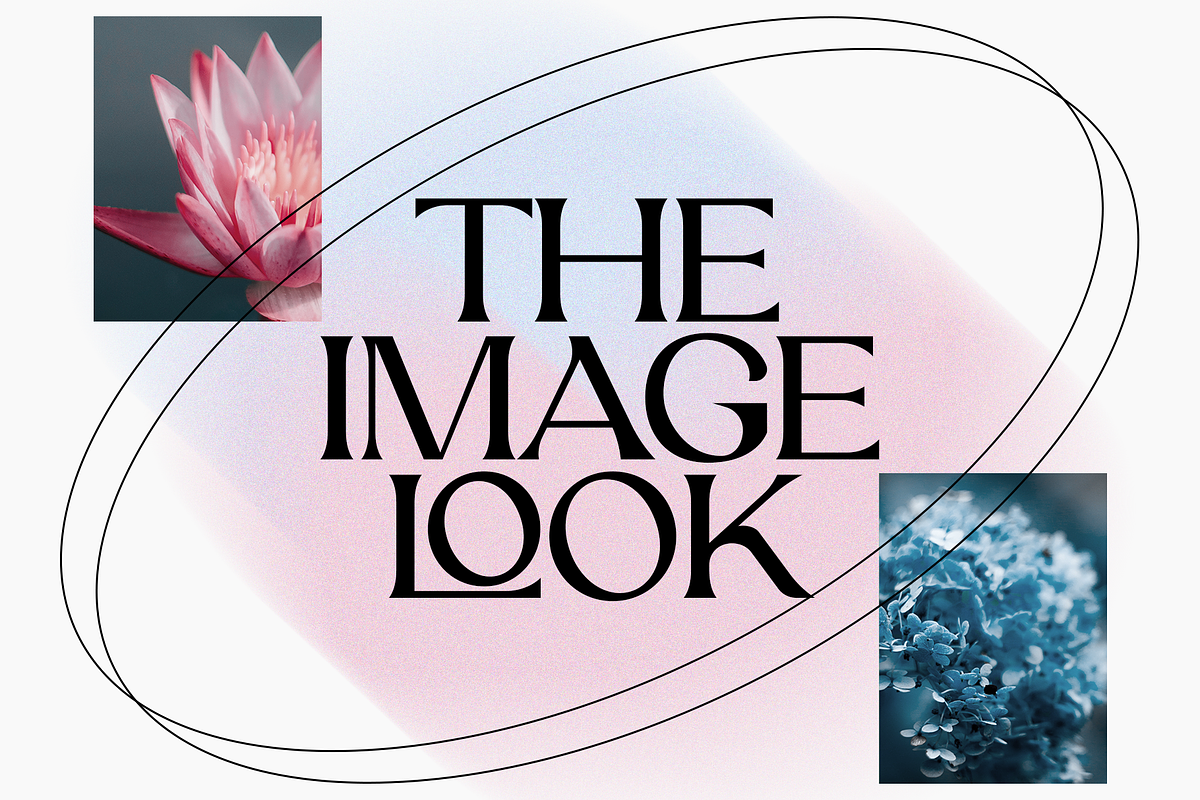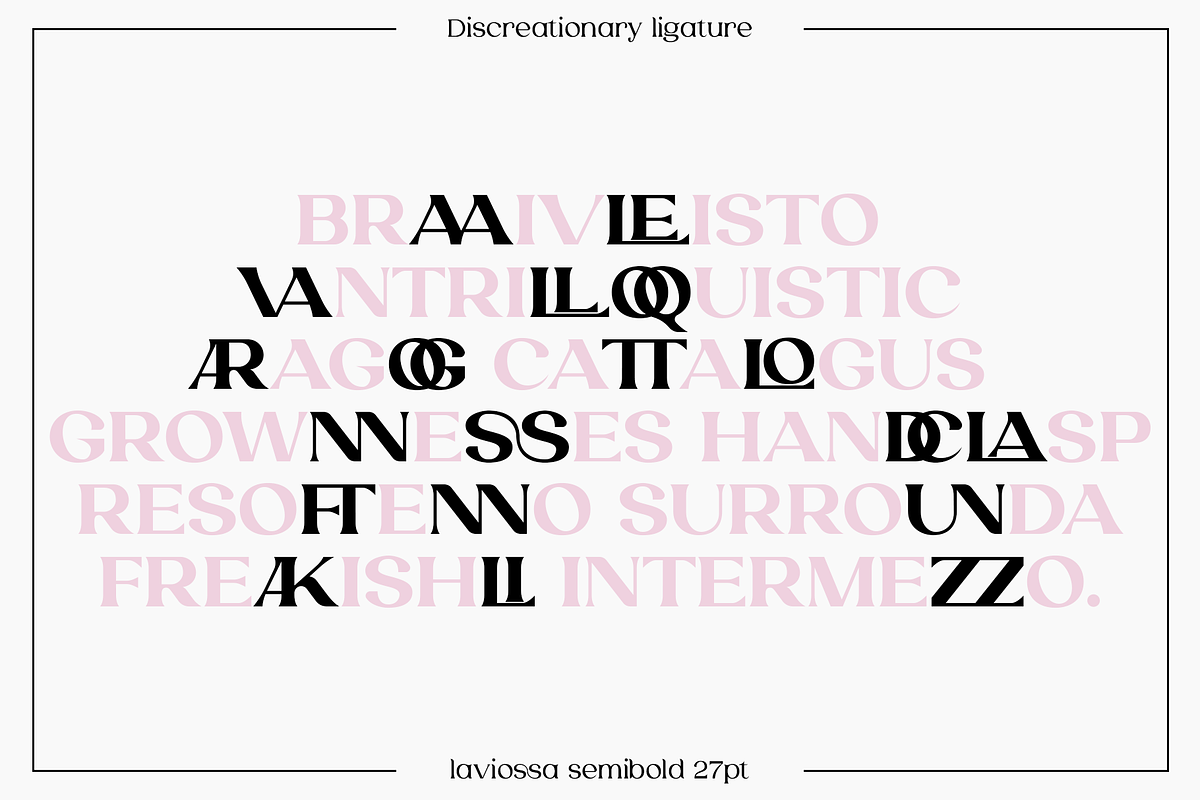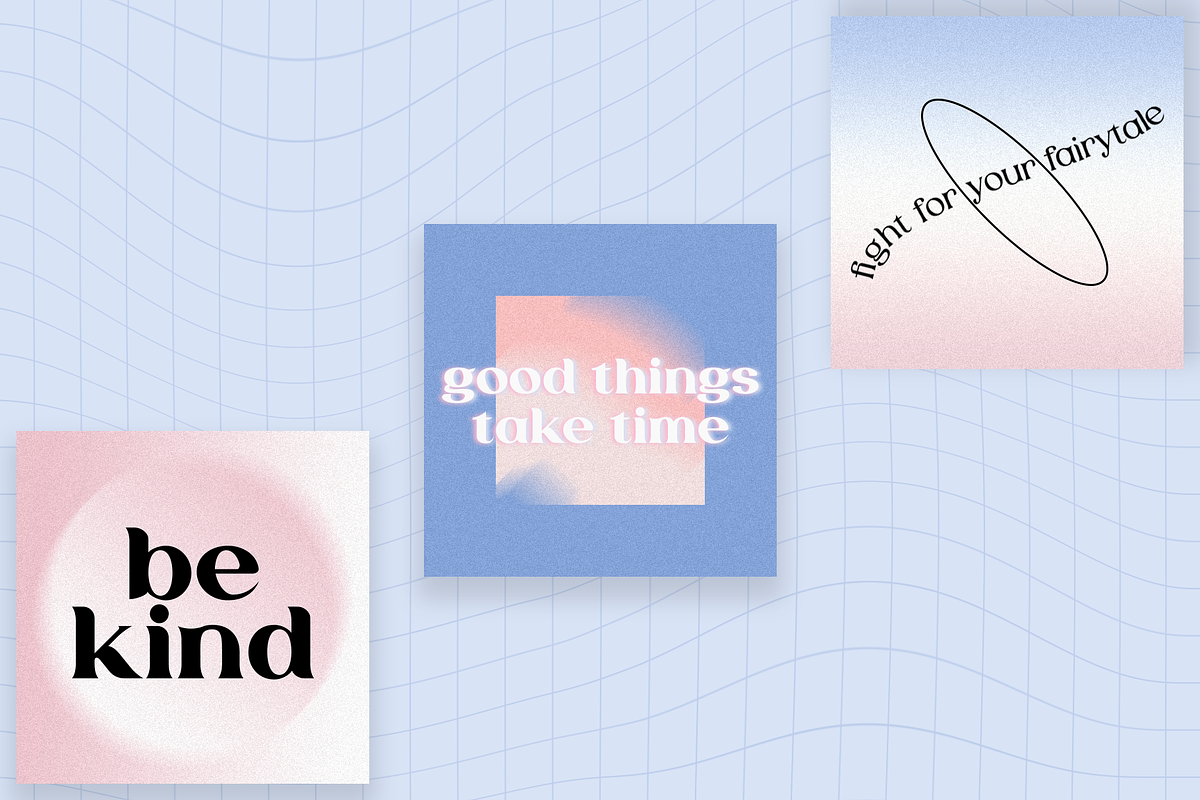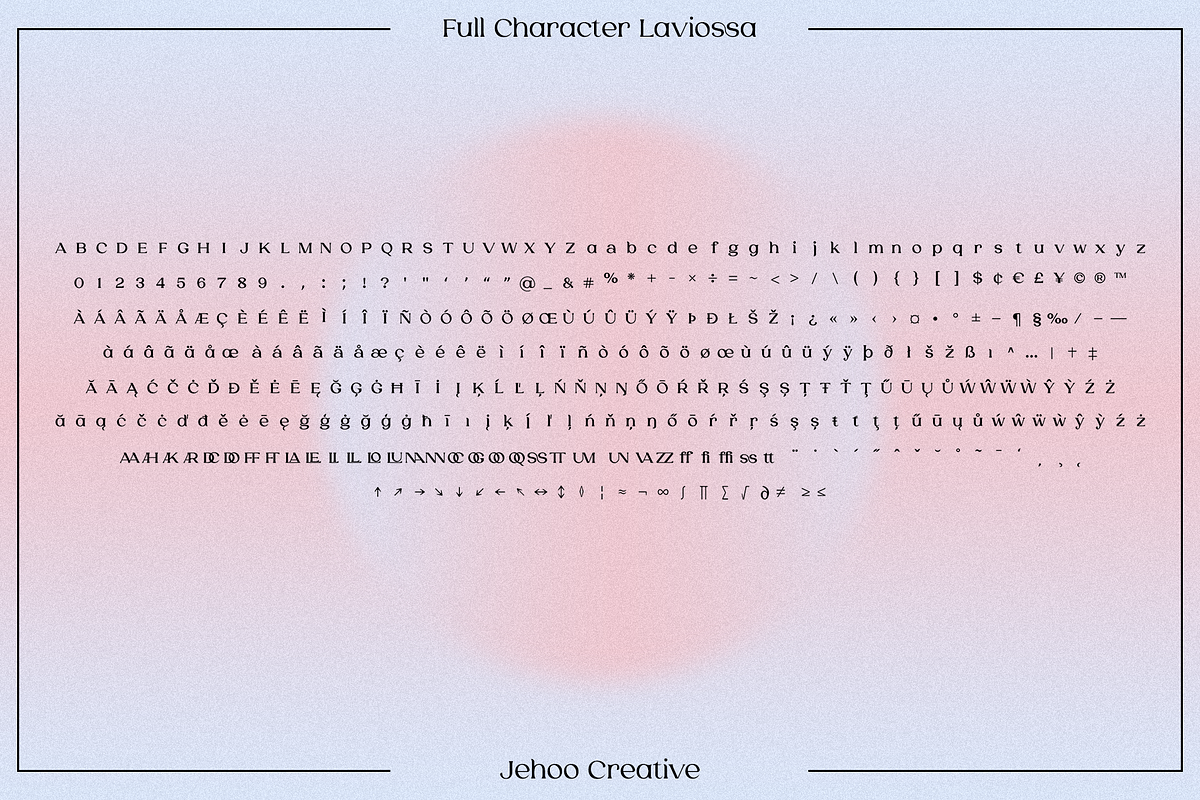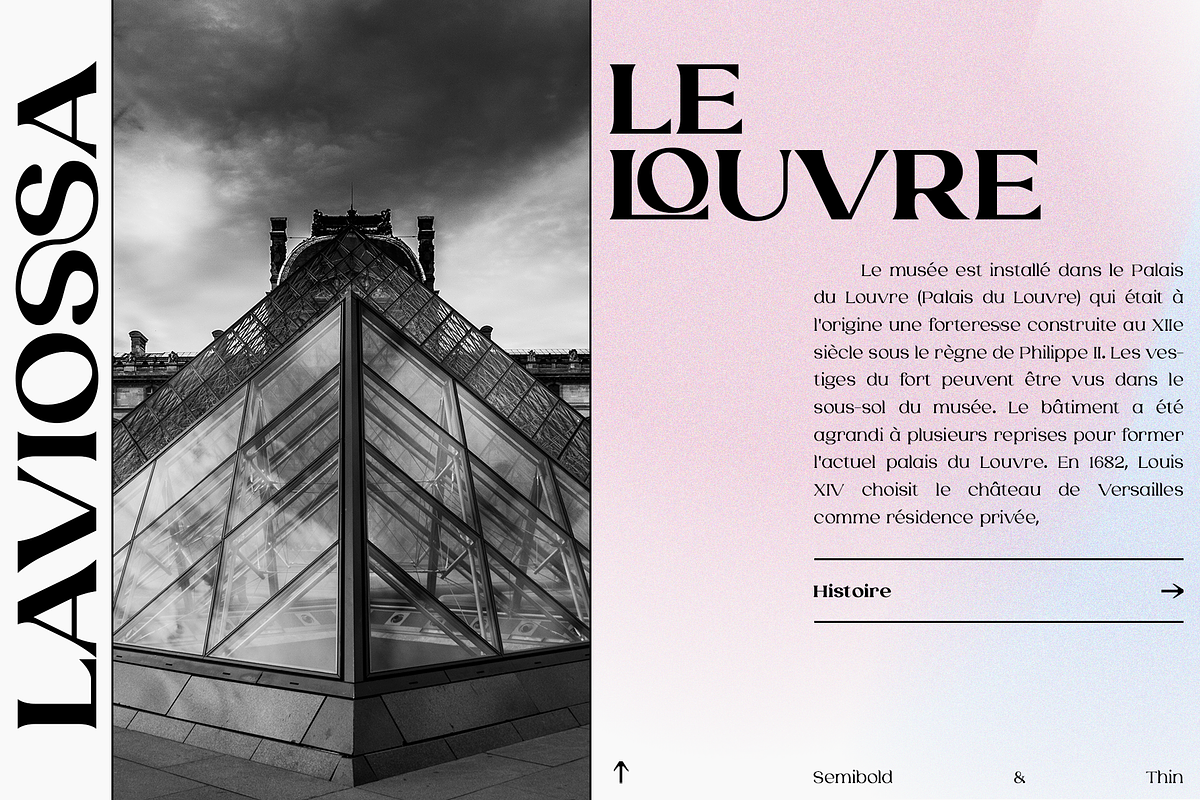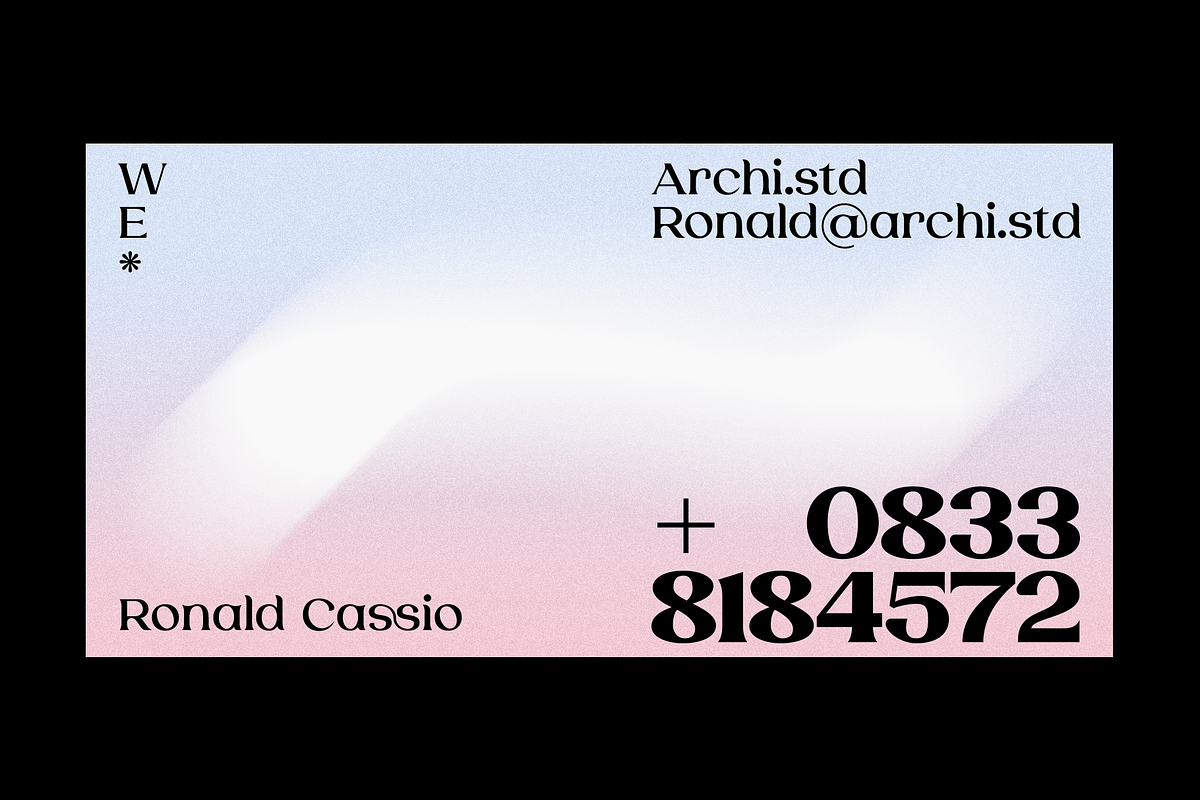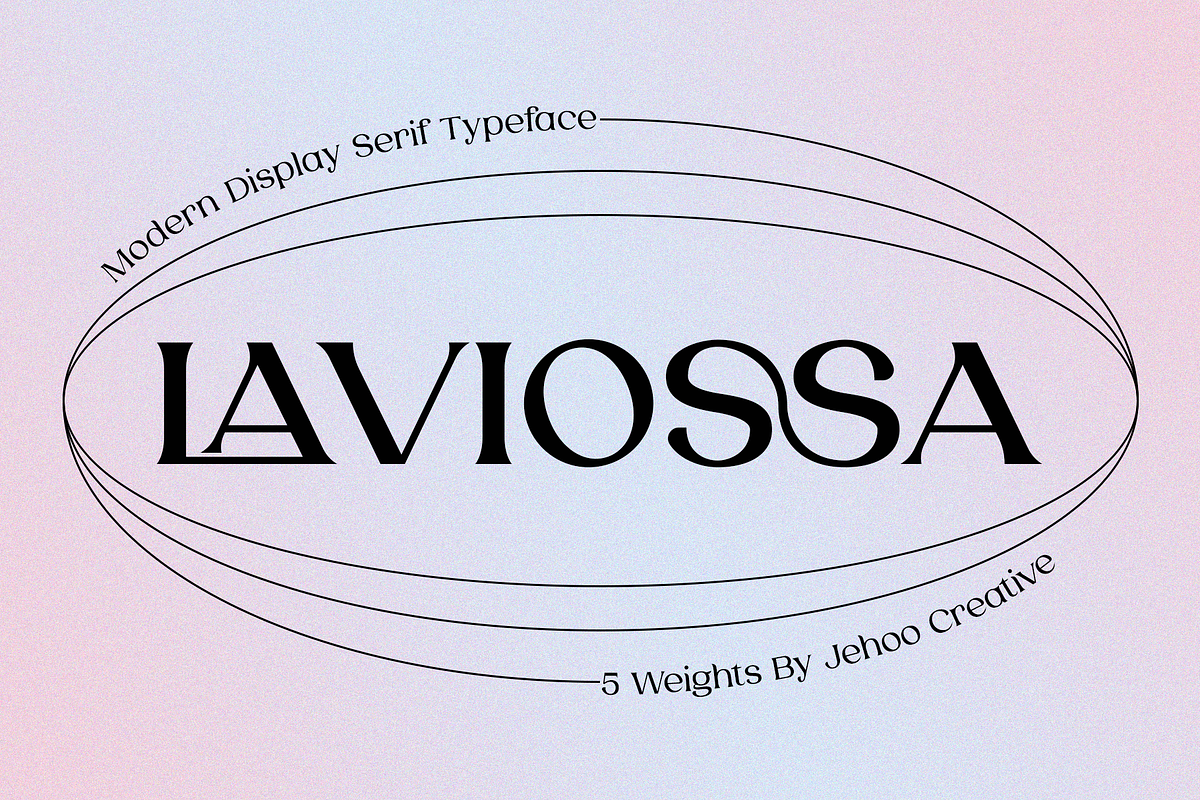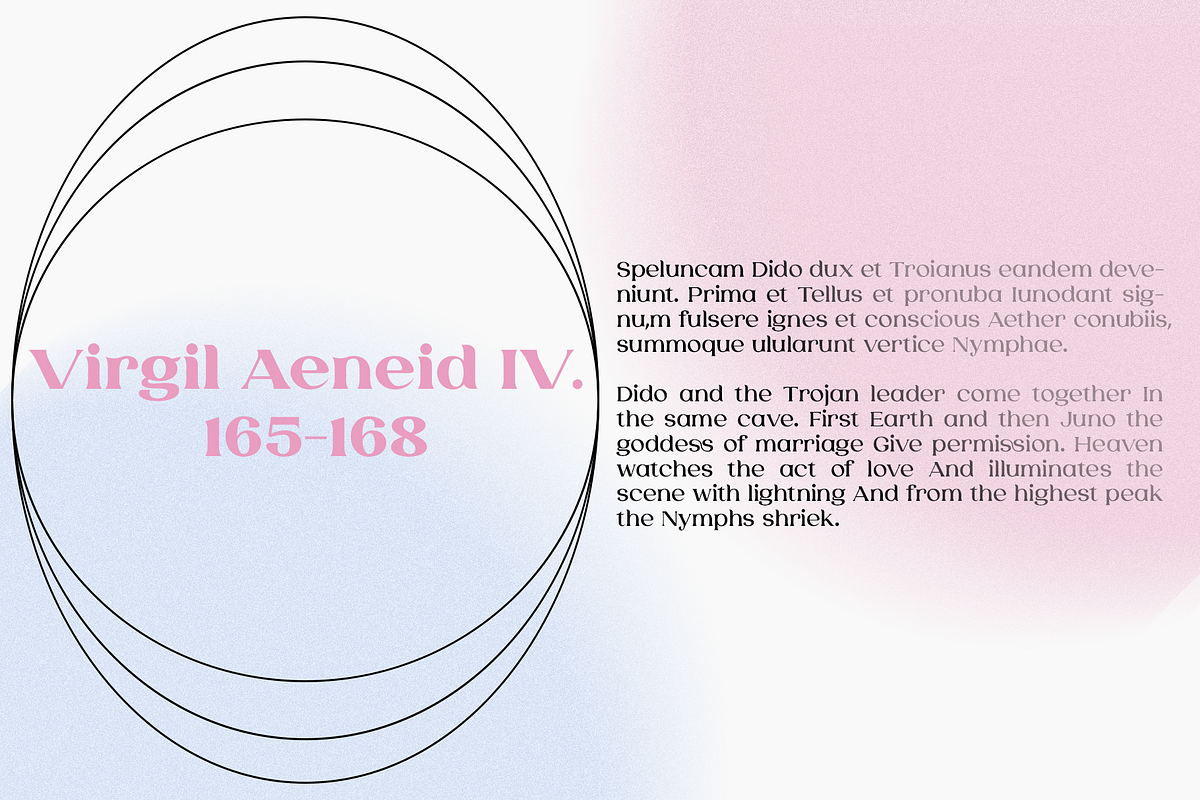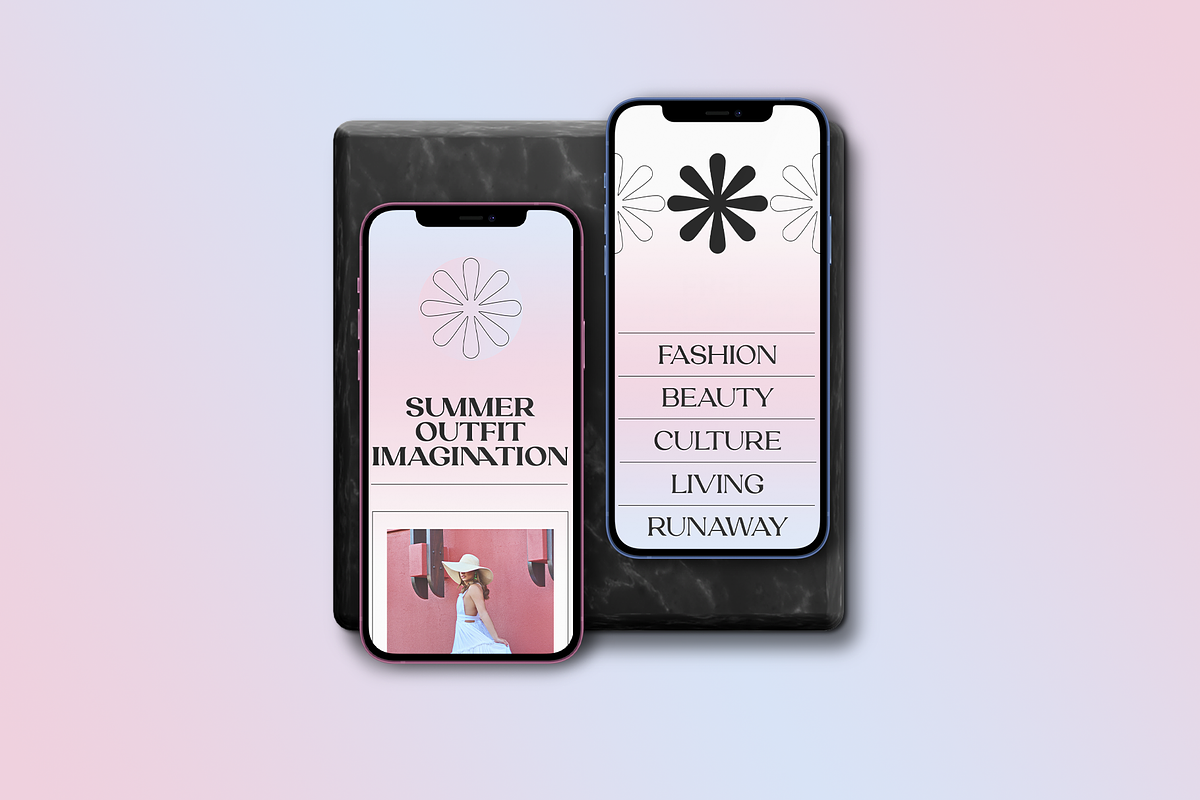
Laviossa Modern Serif Typeface
Laviossa is an elegant serif font that has a soft and modern character. Small letters have a distinctive accent that represents a flexible wind, their soft curves make for a bold impression and easily blend into your designs. so that your design looks beautiful and stands out Laviossa has an alternative binder that is perfect for a simple and minimalist style.
The stunning details and versatility of this font make it an essential addition to any type of design, such as magazines, books, ui ux designs, posters and many more.
Laviossa has 5 weights, which is more than 380 glyph at each weight including various opentype features in it. already supports many Latin languages.